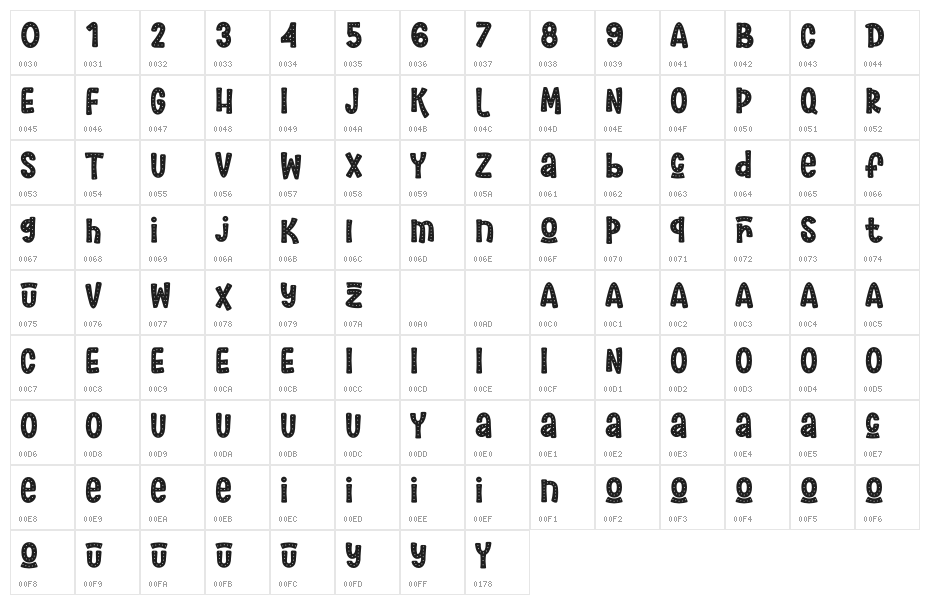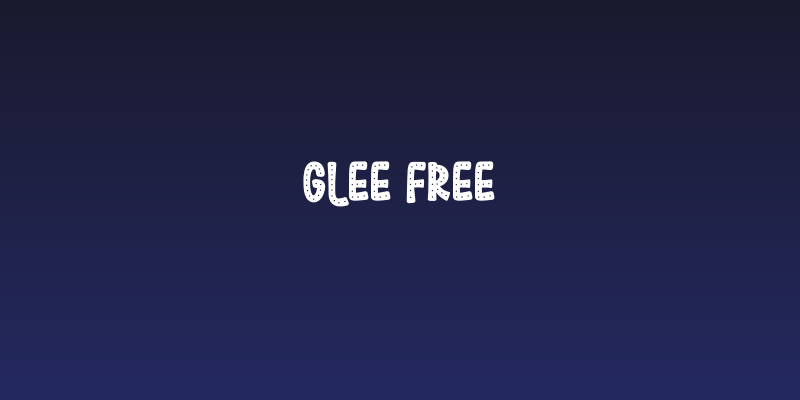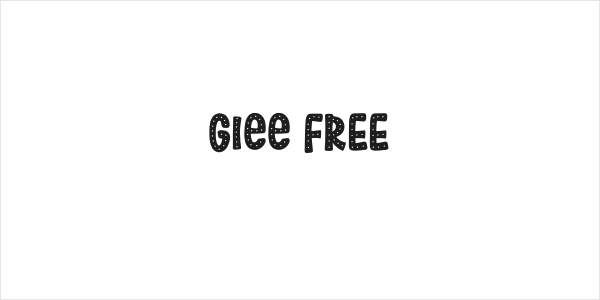
Glee FREE Font
| 全体的なスタイル | Playful, Whimsical, Fun |
| おすすめプロジェクト | Ideal for children's books, party invitations, playful branding, and creative posters. |